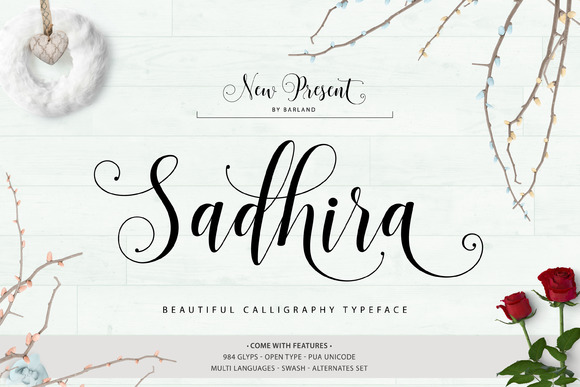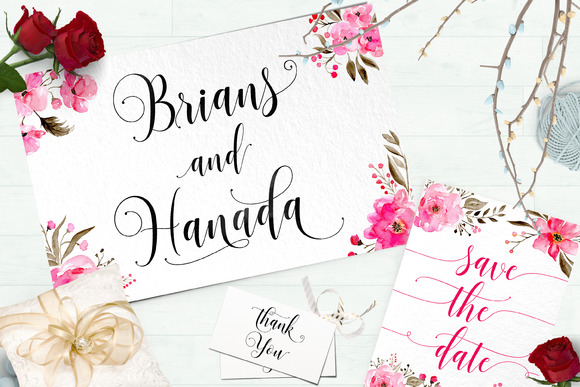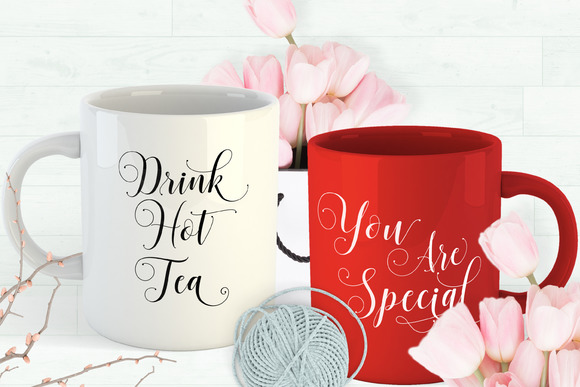
About Sadhira Script Font
The Sadhira Script is an extremely detailed modern script font.
It comes packed with almost a 1000 unique glyphs (984 to be exact) and through the use of alternates it offers loads of opportunities for customization of your work. The font is filled with unique swashes and swooshes and is PUA encoded.
It also includes 7 alternative fonts which are great to mix and match.